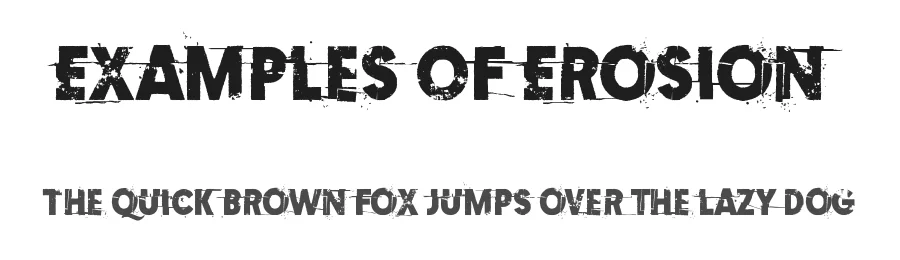
About Blocknation Font
Blocknation is a decorative font designed by Rafael Branco. It includes 198 glyphs, a medium weight, TTF (TrueType) format, and 209 languages. Blocknation is free to download; check the license details on this page before commercial use. Decorative fonts like Blocknation work best for logos, posters, packaging, and standout headlines.
Blocknation Font is a decorative font that shines as a display or heading face. Pair it with a clean sans-serif or serif font for body text β the contrast creates a clear hierarchy while the two styles stay balanced and easy to read.
Blocknation Font
Blocknation Font is a decorative typeface by Rafael Branco, ideal for logos, invitations, branding, and creative projects.